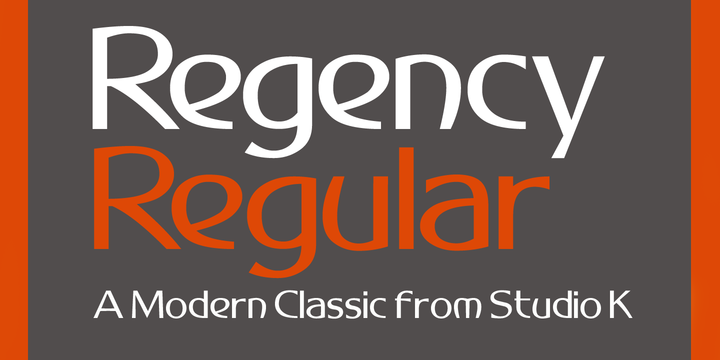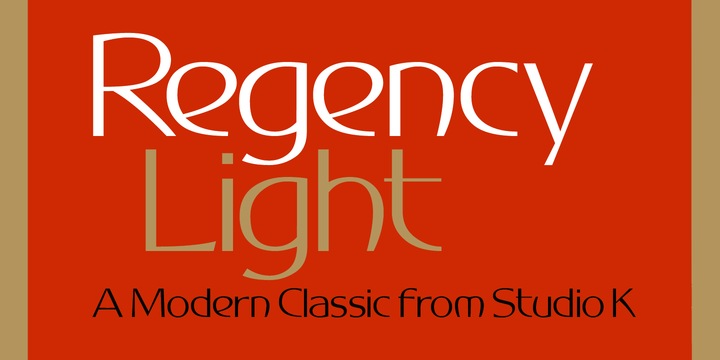
Regency Font Family
About this font family
Regency is named after the style associated with the period, which is at once elegant and luxurious. A modern classic, it is influenced by Americana and Optima and combines the style of a serif face with the simplicity of sans serif.